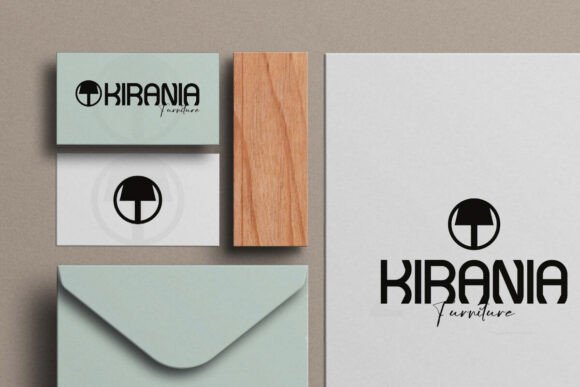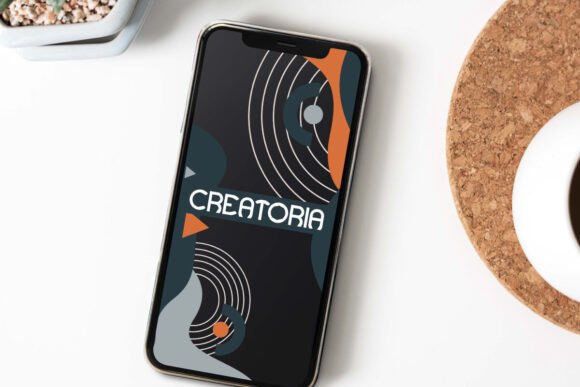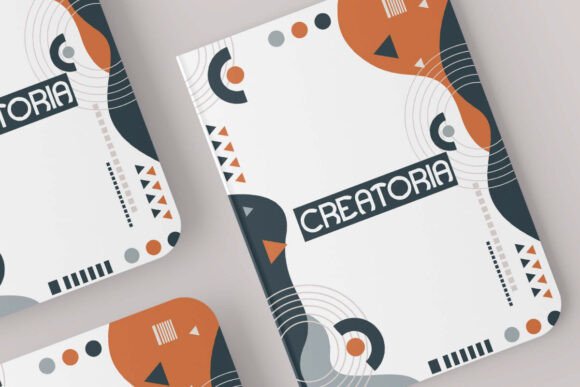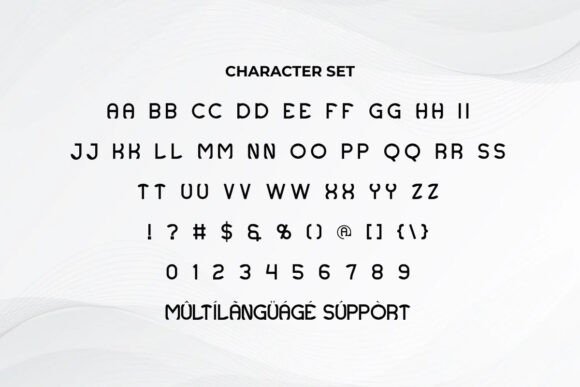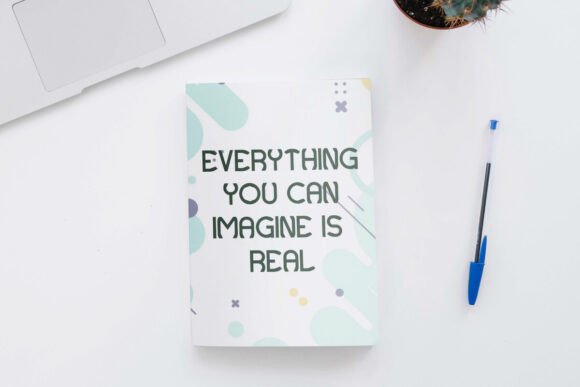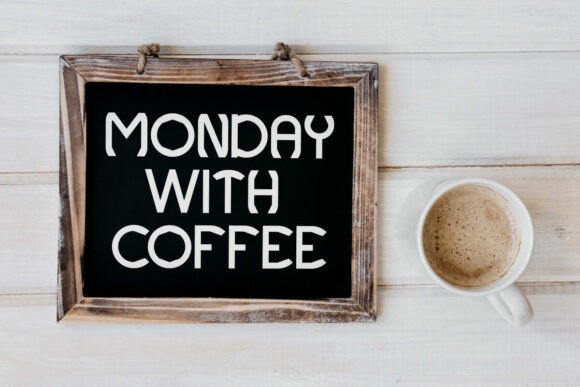
Introduction to Creatoria Font
Creatoria is a unique modern sans serif display font with curve edge lines.
Even though it has a unique shape, all the characters in this font have a modern style that you can pair with other types of fonts and also in many types of designs, such as billboard, brand image, card, cover, custom design, flyer, invitation, label, menu, packaging, poster, screen print, signage, social media post, stationery, sticker, title, website, and many more .